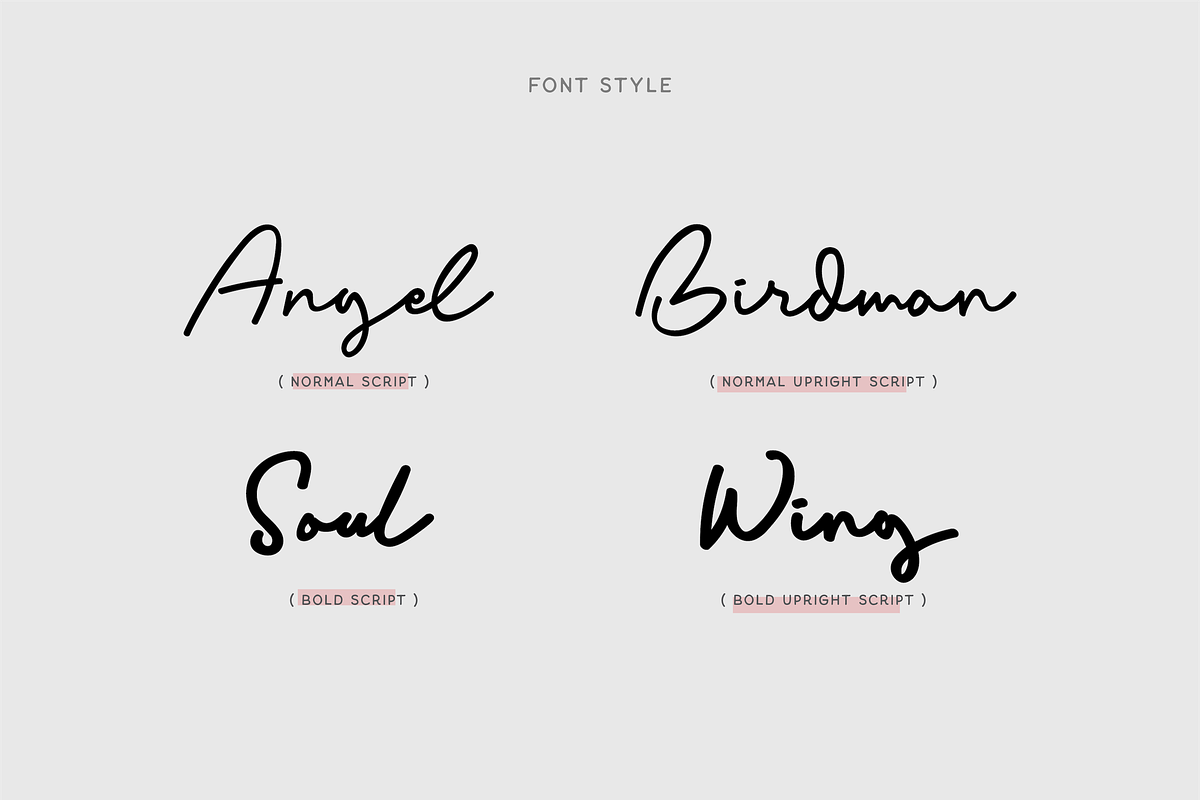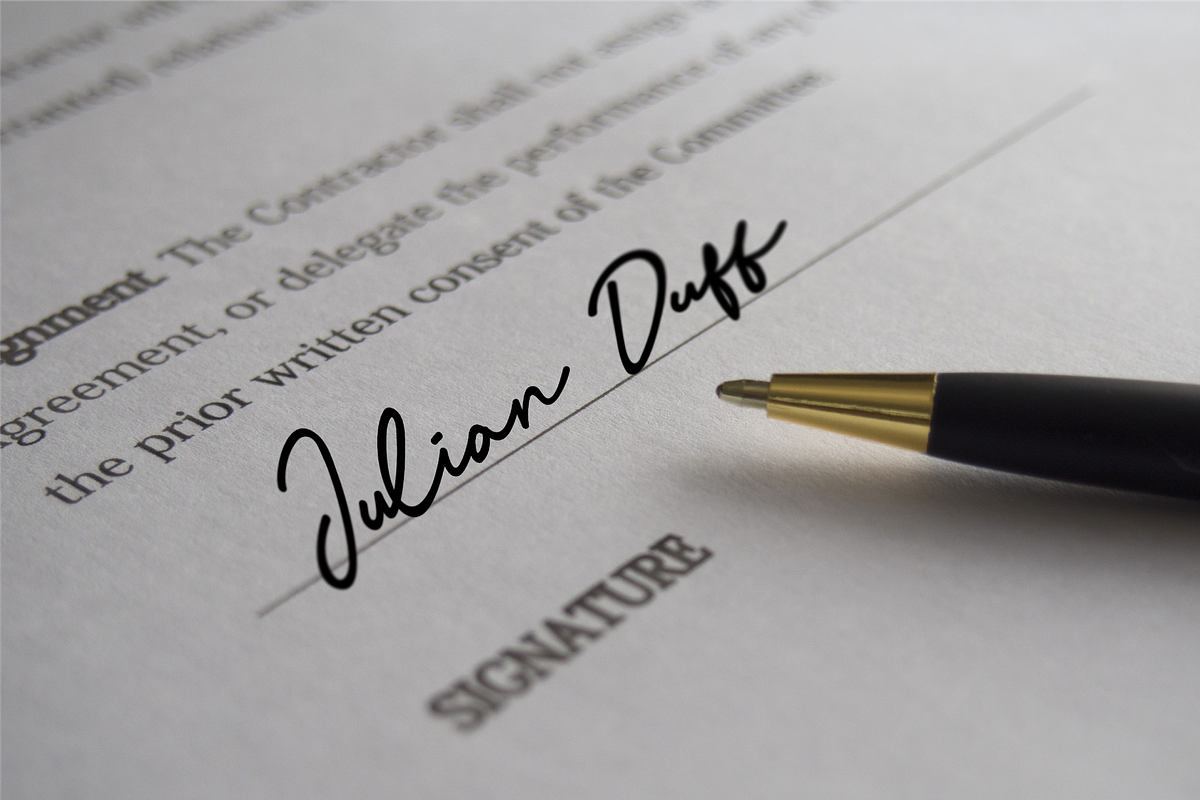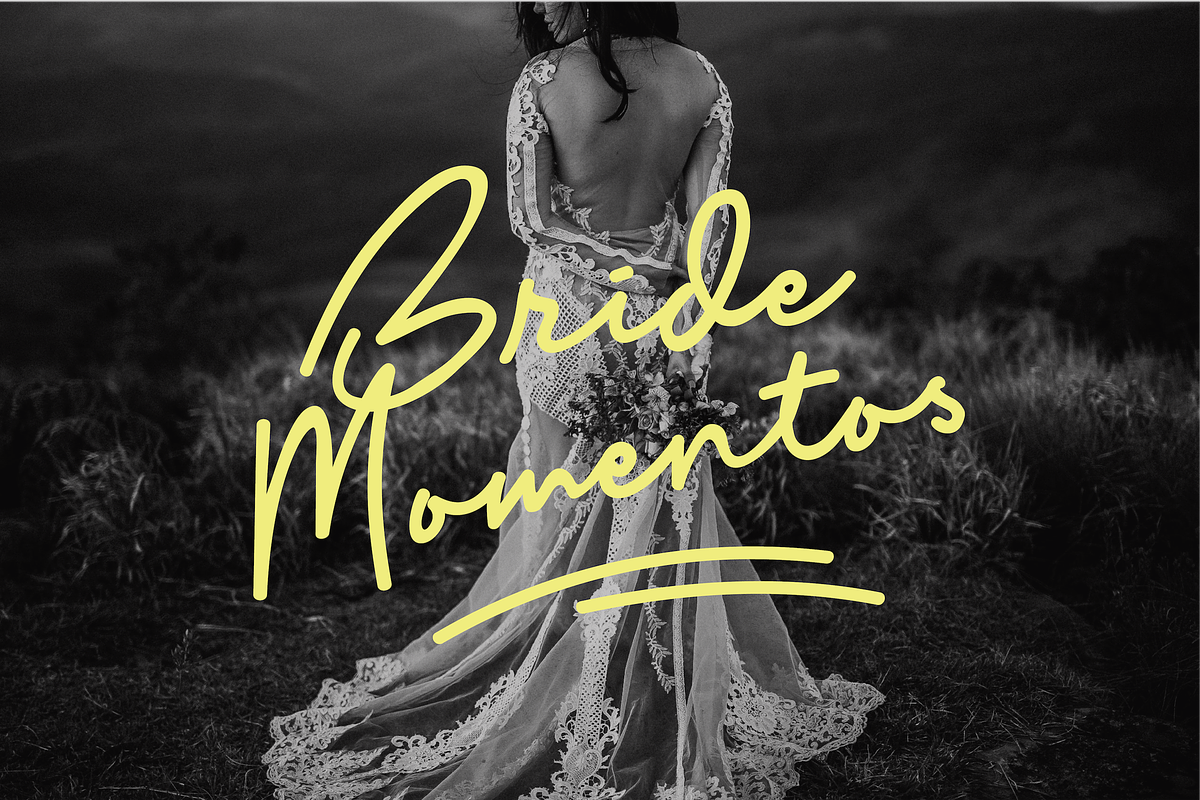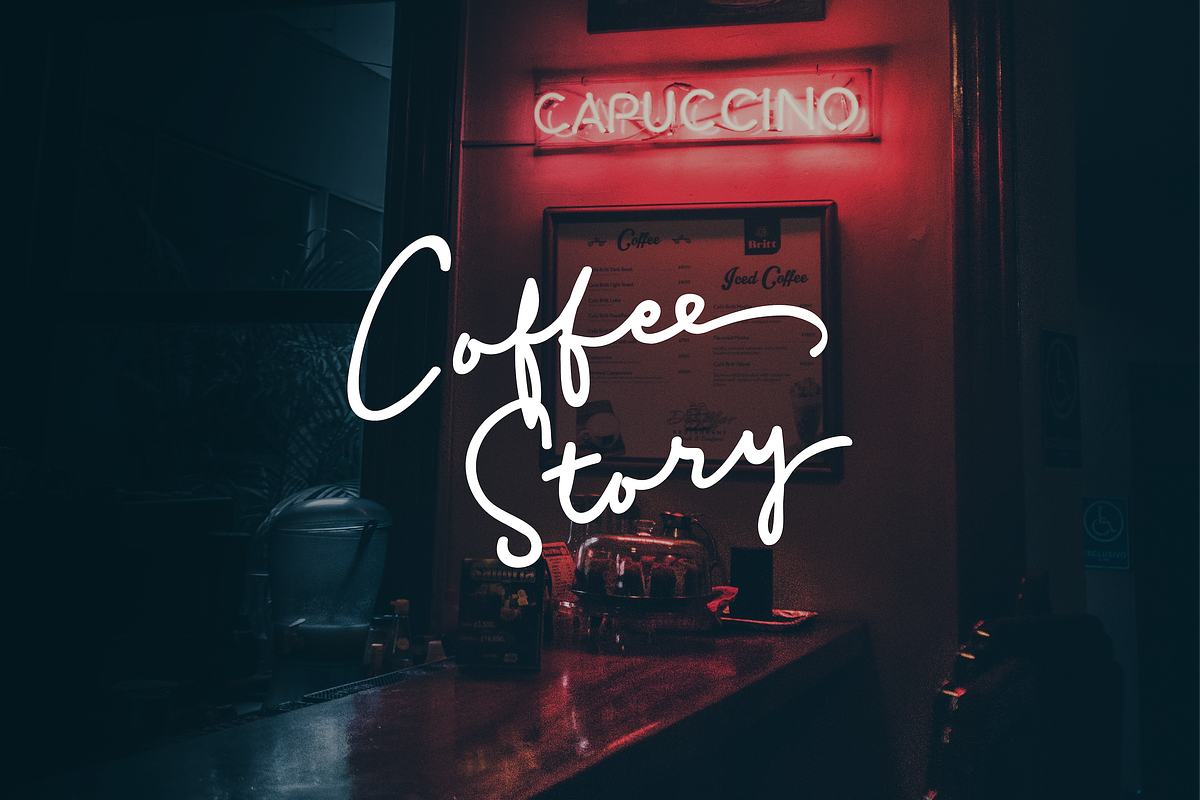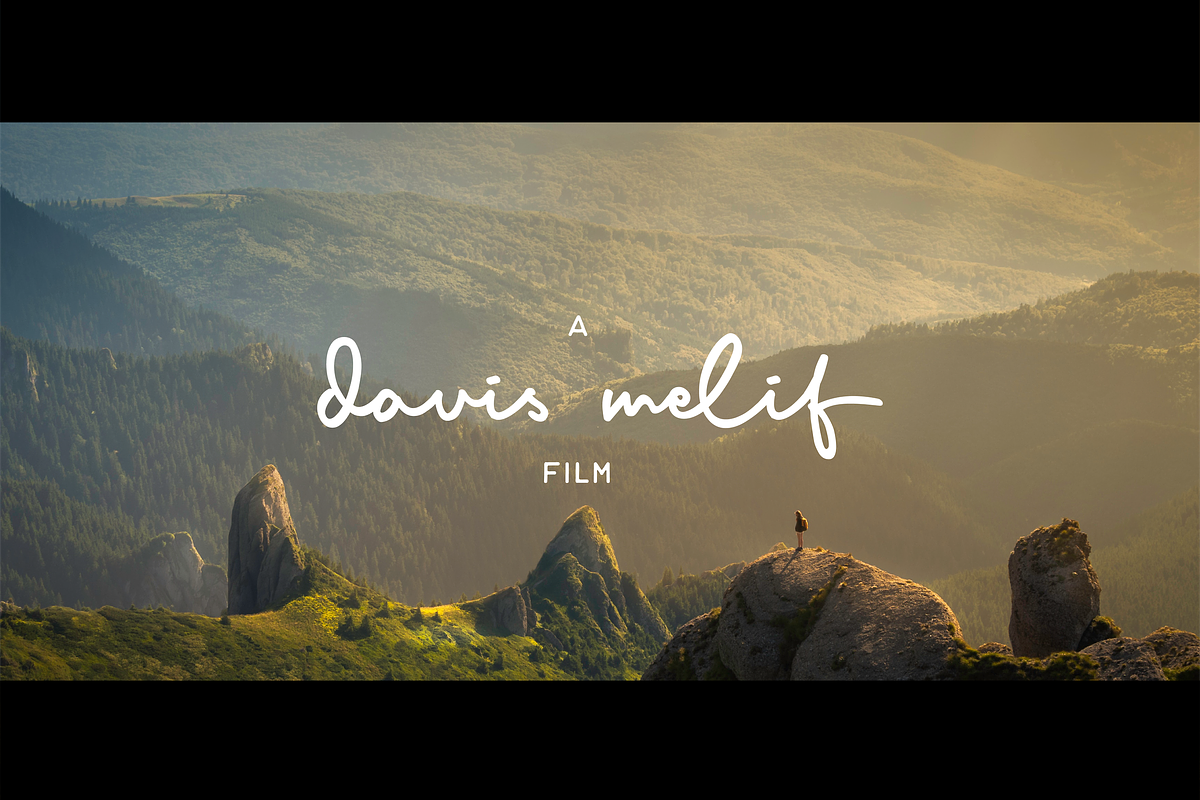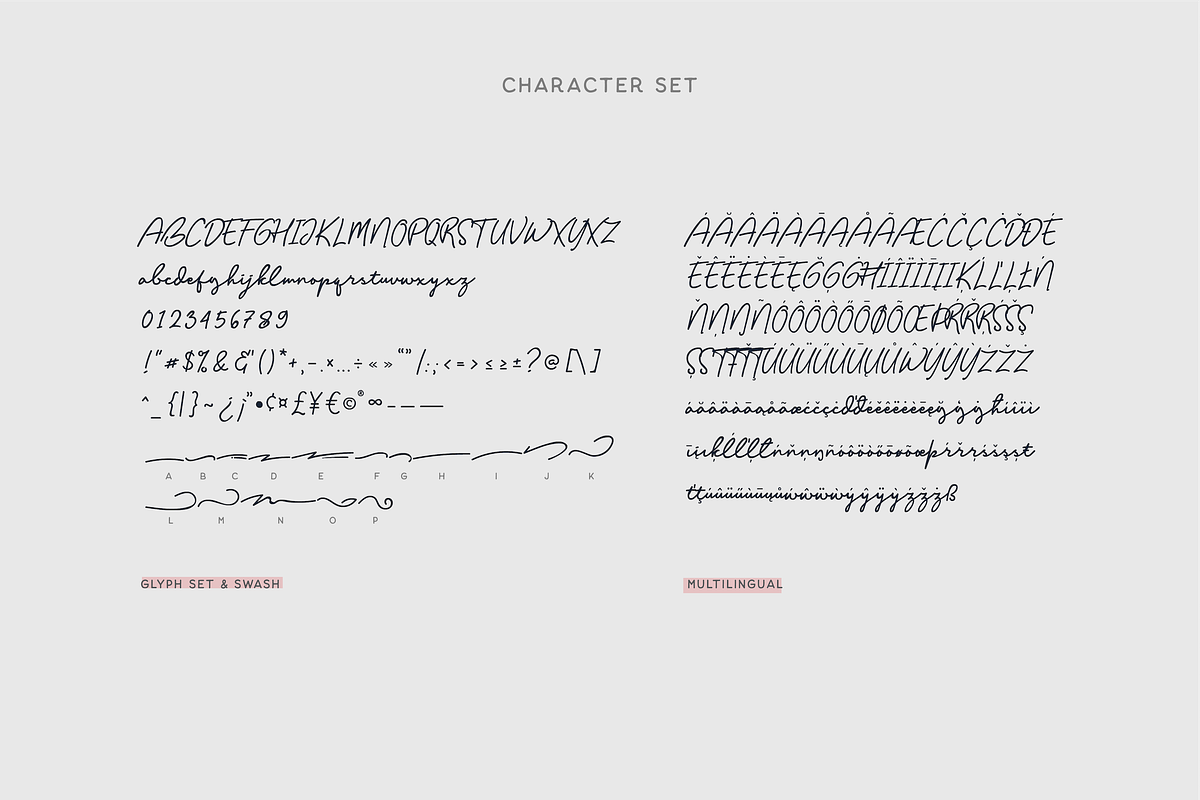
Balig Script -Elegant Signature Font
The Balig Script offers a refined blend of versatility and elegance, presented in a signature pen style. Available in two distinct styles—Normal and Bold—this typeface is designed to embody sophistication in every stroke. It's an ideal choice for projects such as creating captivating signatures, logo types, wedding venues, posters, and brochures.
Balig Script features comprehensive OpenType capabilities, including Stylistic Alternates and Contextual Alternates such as Initial and Terminal Forms. These elements combine to offer a natural flow that enhances the aesthetic quality of each letter.
Opentype Features Standard Ligatures Contextual Alternates Stylistic Alternates
Language Support This font supports a wide range of languages, making it suitable for a global audience, including English, French, German, Italian, and many more.